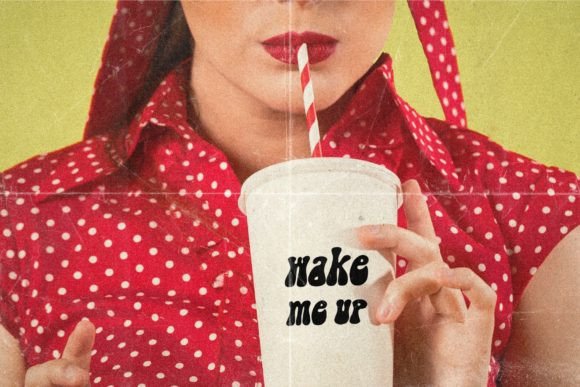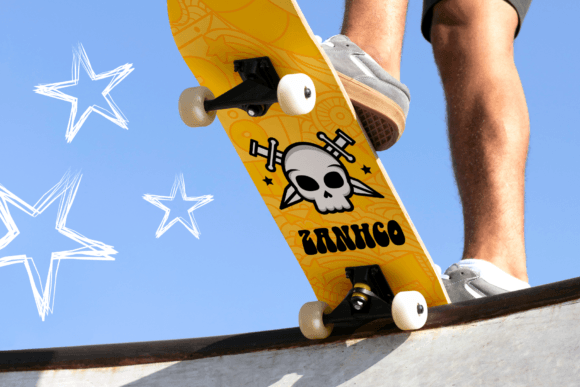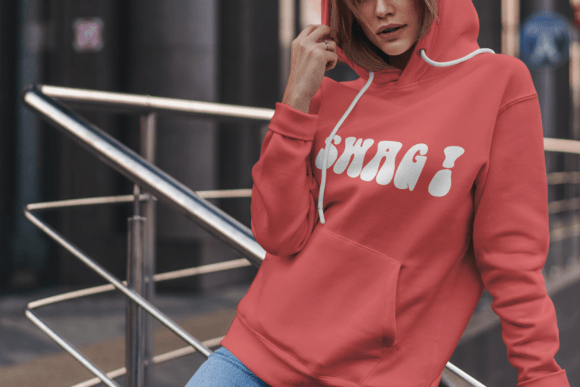
Introduction to Funky Bite Font
Funky Bite is a bold and vibrant retro display font that pays homage to the iconic Y2K era.
Its energetic and playful design instantly transports you back to the fun and funky vibe of the early 2000s With its bold, chunky letterforms and quirky details, Funky Bite commands attention and adds a nostalgic flair to any project.